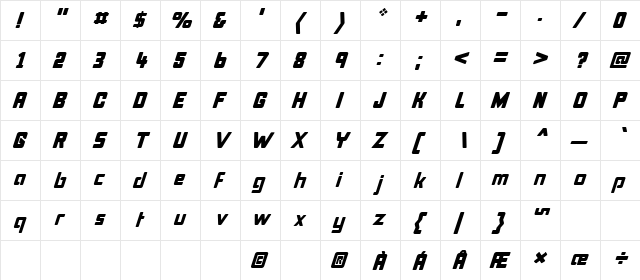
Bonk Italic Regular
Design Context for Bonk Italic Typeface
Bonk Italic offers clean, dependable letterforms without strong stylistic allegiance, making it a practical choice for designers who need flexibility. The slanted form adds forward momentum and visual energy.
Pro Tip: Try Bonk Italic for annotation and caption copy alongside an upright companion — the contrast in angle creates a dynamic but ordered typographic system.